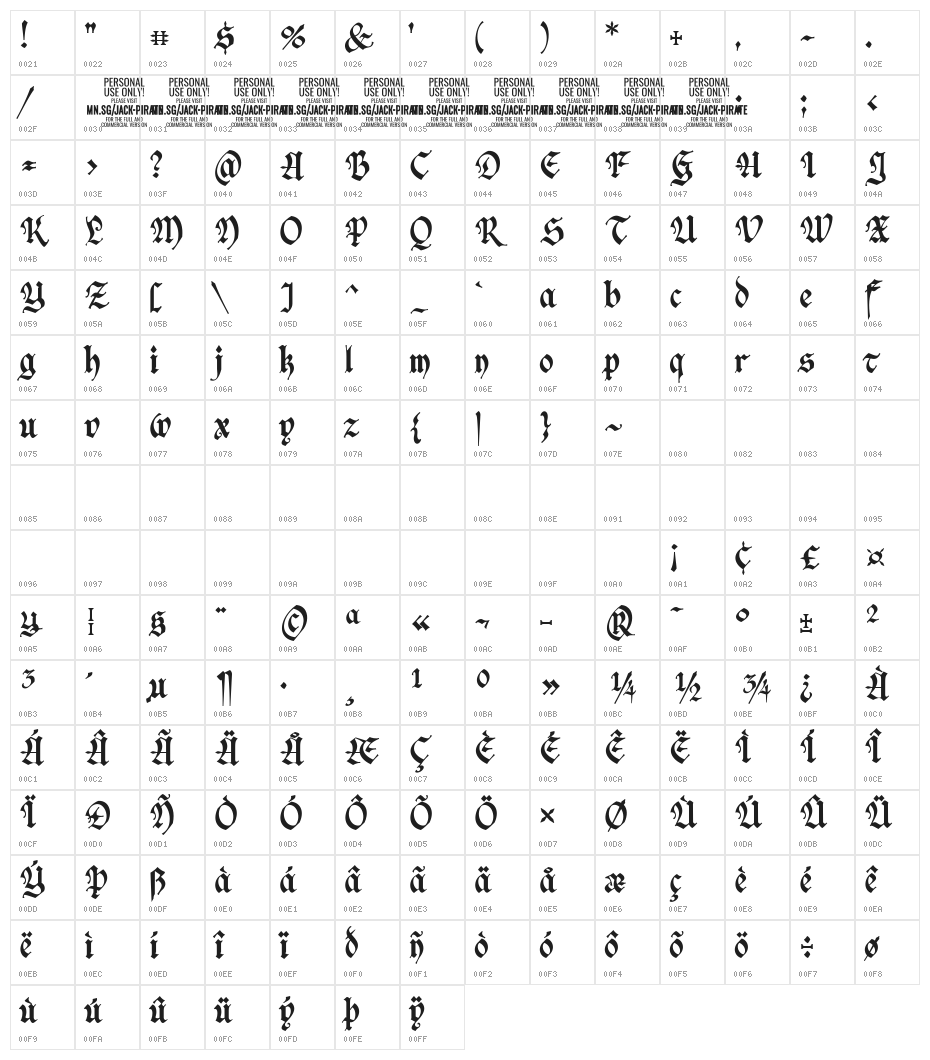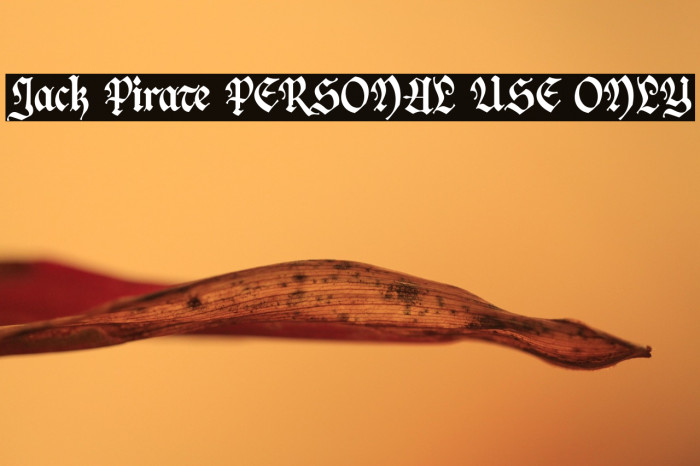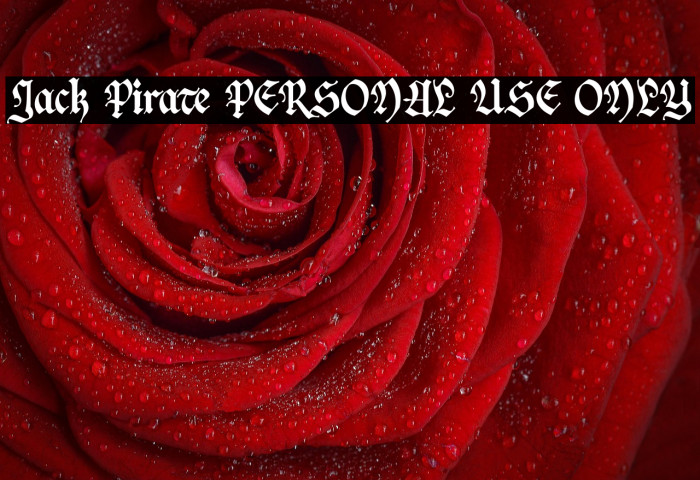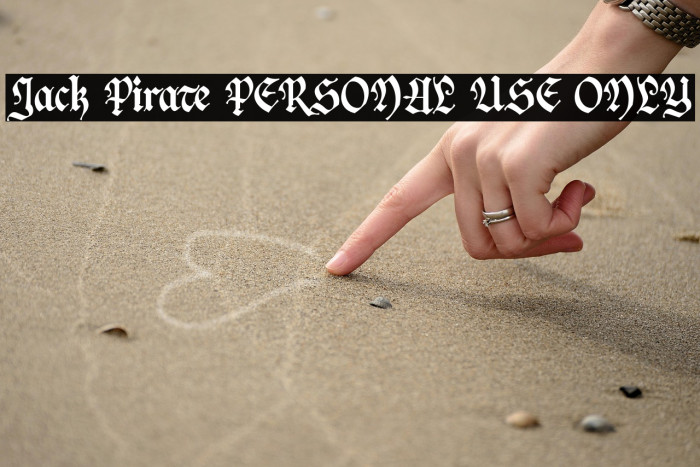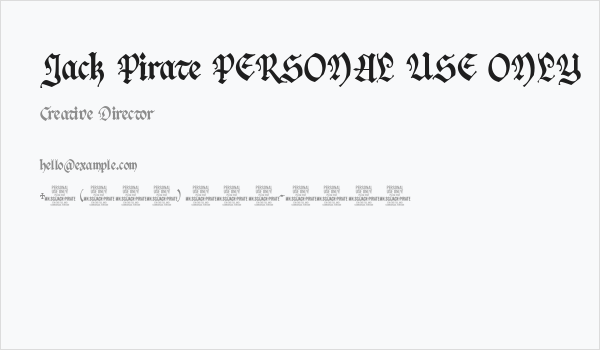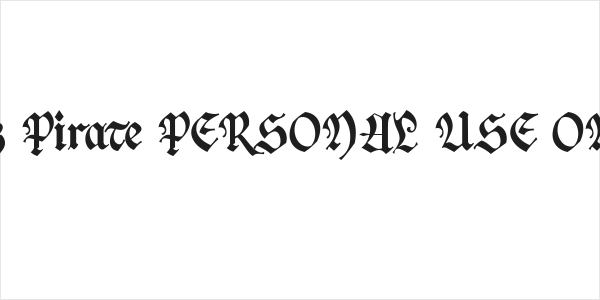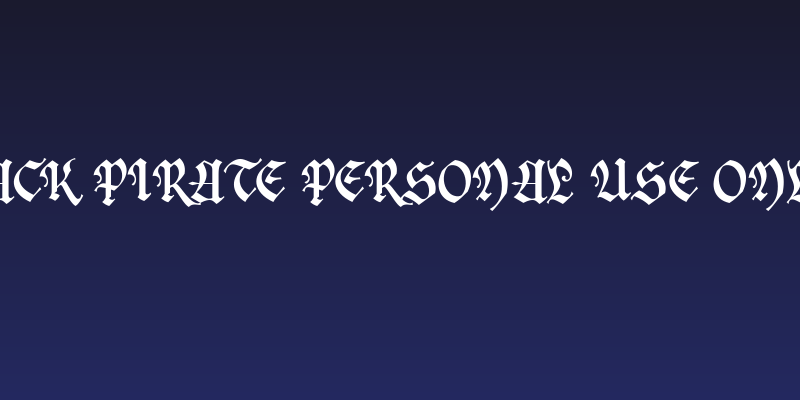
Jack Pirate PERSONAL USE ONLY Font
Jack Pirate PERSONAL USE ONLY Description
This font embodies a classic blackletter style, reminiscent of medieval script with its ornate and intricate letterforms. The characters are bold and dramatic, featuring sharp angles and elaborate serifs that convey a sense of tradition and formality. The uppercase letters are particularly striking, with their tall, narrow shapes and decorative flourishes. The lowercase letters maintain the same level of detail, ensuring consistency across the typeface. The numerals and special characters are equally stylized, fitting seamlessly with the overall aesthetic. This font is ideal for projects that require a historical or gothic touch.
| Proposed Projects | Ideal for historical documents, gothic-themed designs, book covers, and event invitations. |